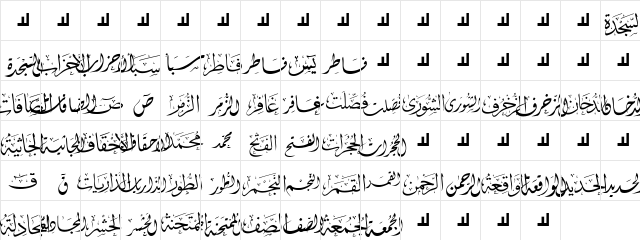
Mcs Swer Al_Quran 2 Normal
Design Context for Mcs Swer Al_Quran 2 Typeface
Mcs Swer Al_Quran 2 is a composed and adaptable typeface that performs quietly and consistently across a wide range of design contexts.